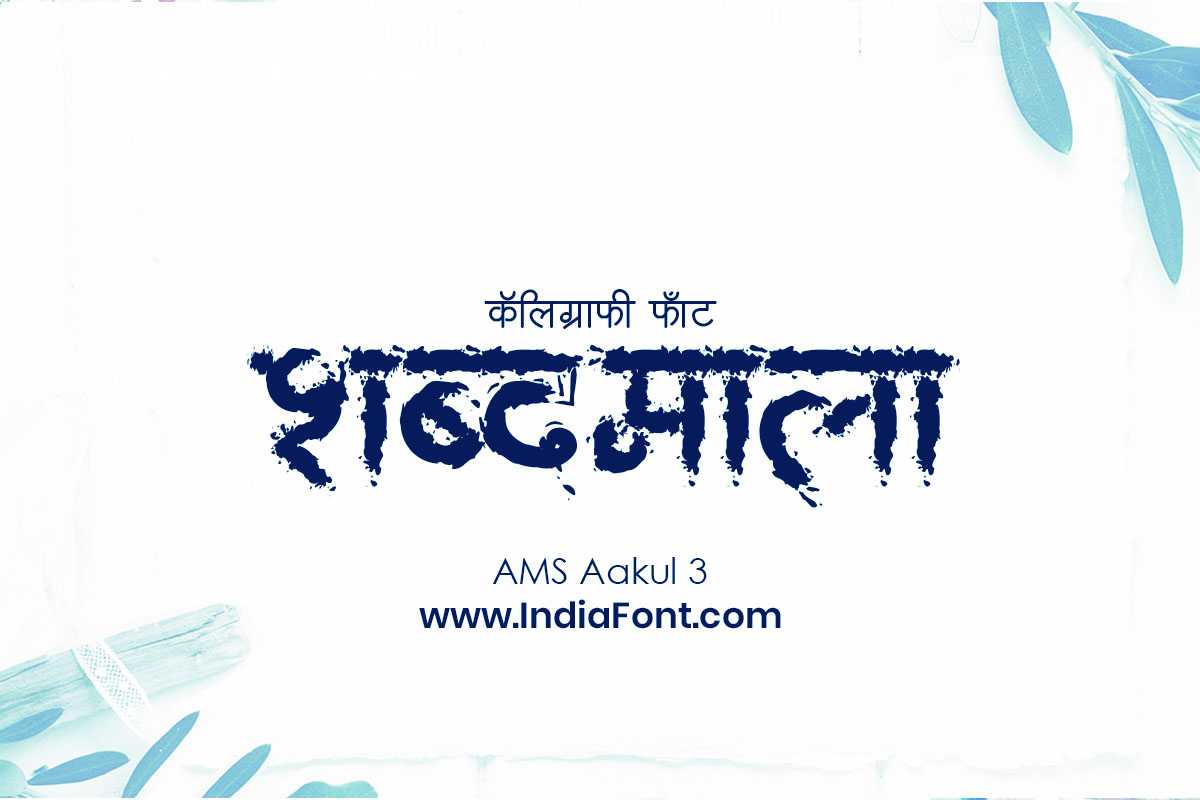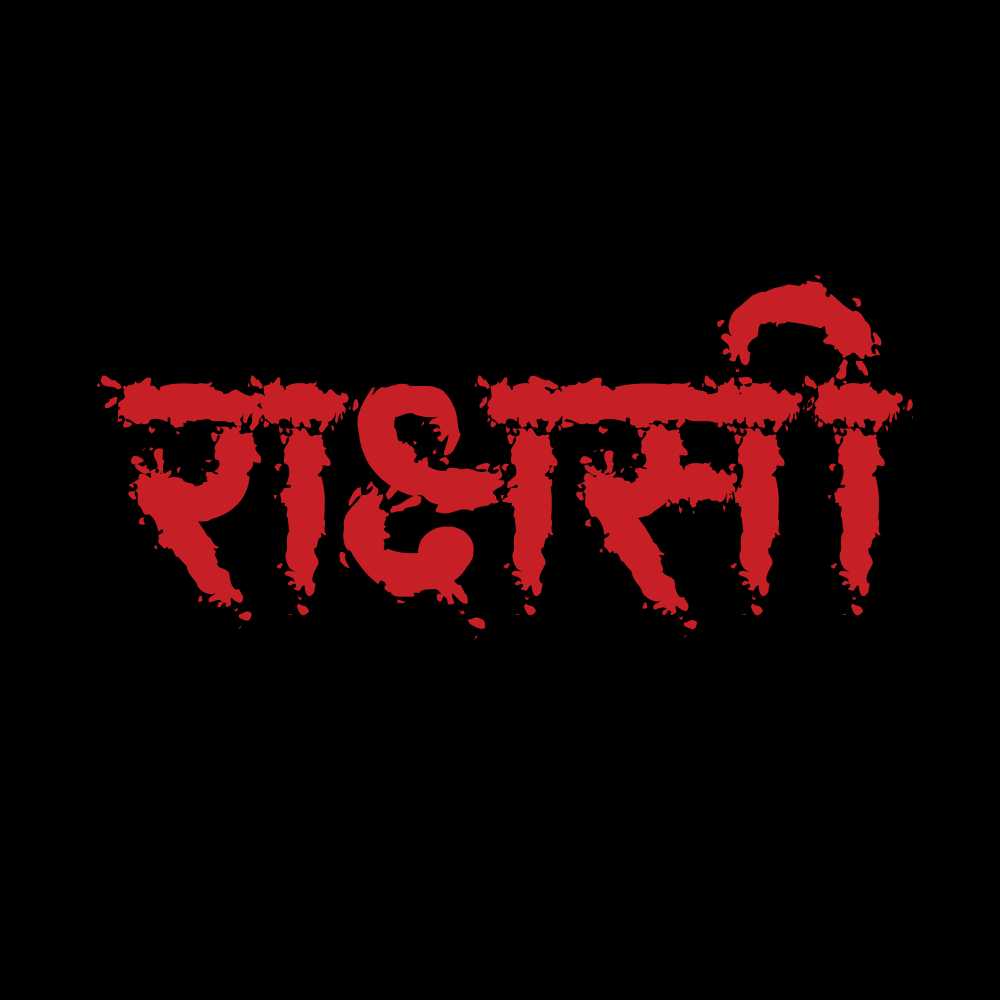
AMS Aakul 3
Building upon the success of AMS Aakul 1 and AMS Aakul 2, AMS Aakul 3 brings a fresh perspective to Devanagari script. Its harmonious blend of traditional elements and contemporary aesthetics results in a typeface that exudes sophistication and versatility.
AMS Aakul 3 Design Inspiration
AMS Aakul 3 used in wedding invitation design
AMS Aakul 3 in poster design application
About AMS Aakul 3 Font
Building upon the success of AMS Aakul 1 and AMS Aakul 2, AMS Aakul 3 brings a fresh perspective to Devanagari script. Its harmonious blend of traditional elements and contemporary aesthetics results in a typeface that exudes sophistication and versatility. This decorative font combines elegance with functionality, making it perfect for various design applications.
AMS Aakul 3 is a professionally crafted decorative typeface that brings clarity and style to your projects. Designed with attention to detail, it supports hindi and marathi characters flawlessly.
Whether you're working on invitations, posters, books-publications, or other creative projects, AMS Aakul 3 delivers consistent performance across both digital and print media. This carefully designed typeface ensures readability and visual appeal in all your design work.
Why Choose AMS Aakul 3?
AMS Aakul 3 excels in various design scenarios. Here are the most suitable applications:
About AMS Aakul 3 Typography Style
AMS Aakul 3 is a professionally crafted decorative font that exemplifies modern Hindi typography design. This free font is perfect for designers seeking impactful poster and display applications.
Available in 1 weight and supporting hindi, marathi scripts, AMS Aakul 3 offers exceptional versatility for both digital and print media. Whether you're working on invitations, posters, books-publications, this carefully designed typeface ensures consistent quality and professional results across all your typography projects.